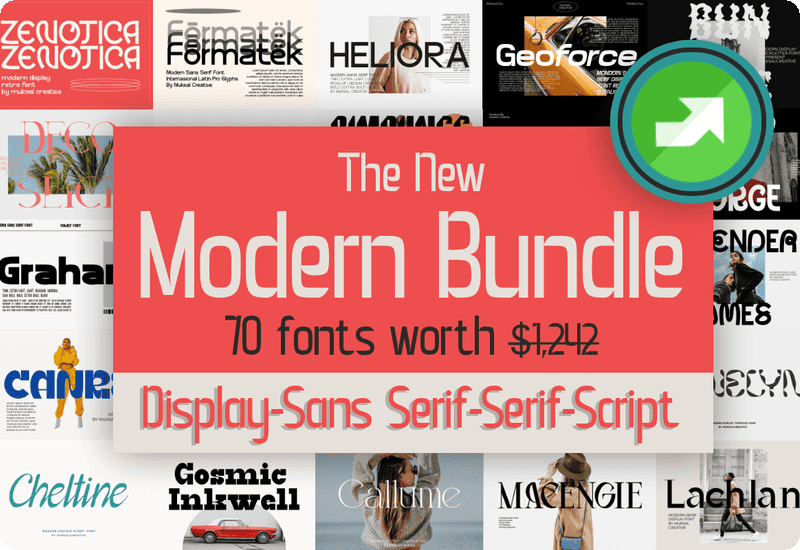
A Collection of 70 Premium Modern Fonts for Designers and Creatives
The New Modern Font Bundle offers 70 professionally crafted fonts, perfect for graphic designers, brand strategists, marketers, and creatives who want to add a touch of sophistication to their projects. This collection includes serif, sans-serif, script, and display fonts, providing versatility for various design needs. Whether creating logos, website headers, social media content, invitations, marketing materials, or editorial layouts, these fonts deliver professional-quality typography suitable for both print and digital applications.
What’s Included in The New Modern Font Bundle?
This exclusive font bundle features a curated selection of 70 modern fonts, spanning multiple styles:
✔ Elegant Serif Fonts – Timeless and refined fonts ideal for editorial layouts, luxury branding, and formal invitations.
✔ Bold Display Fonts – Attention-grabbing typefaces suited for headlines, posters, banners, and packaging.
✔ Stylish Sans-Serif Fonts – Clean and modern typography for corporate branding, websites, and advertisements.
✔ Charming Script Fonts – Handwritten and calligraphic styles perfect for wedding invitations, product packaging, and artistic projects.
✔ Unique Blackletter & Vintage Fonts – Distinctive lettering for retro designs, gothic themes, and decorative elements.
70 Premium Fonts included in The New Modern Font Bundle
- Carltine Sans Serif Font
- Cairoline Sans Serif Font
- Earfline Serif Font
- Kenlan Serif Font
- Heliora Sans Serif Font
- Bralwood Font Sans Serif Font
- Rabert Conan Serif Font
- Geoforce Display Font
- Gementine Serif Font
- Callume Fontes Serif Fonte
- Carlgine Serif Font
- Nebula Display-Schriftarten Schriftart
- Serenity Moment Serif Font
- Anouk Display-Schriftarten Schriftart
- Graham Sans Serif Font
- Finley George Sans Serif Font
- Burkey Display Font
- Retrade Sans Serif Font
- Gosmic Inkwill Serif Font
- Keroll Serif Font
- Decoslice Fontes de Exibição Fonte
- Gaincero Display Font
- Bezamin Harison Display Font
- Meriage Serif Font
- Zeminous Fontes de Exibição Fonte
- Fiorella Display Font
- Galndrie Display Font
- Gabrile Display Font
- Urban Vogue Display Font
- Mouncella Serif Font
- Luminaire Sans Serif Font
- Formatek Fuentes Sans Serif Fuente
- Tanebrous Display Font
- Bavery Display Font
- Chadenia Display Font
- Created Display Font
- Corqen Display Font
- Beron Display Font
- Zenotica Display Font
- Hauntflare Display Font
- Delphe Display Font
- Koumon Display Font
- Mariella Noeve Serif Font
- Margeline Serif Font
- Magioline Serif Font
- Dashie Display Font
- Rosaline Marige Serif Font
- Panelyn Display Font
- Cheltine Skript-Schriftarten Schriftart
- Canre Display Font
- Gemala Serif Font
- Macengie Serif Font
- Lachlan Serif Font
- Gracie Display Font
- Cameuron Display Font
- Aluender James Sans Serif Font
- Seraphina Serif Font
- Bimounce Display Font
- Calentha Serif Font
- Magefin Serif Font
- Halimah Ghost Display Font
- Carnelius Display Font
- Margeo Serif Font
- Grasher Display Font
- Raftern Sans Serif Font
- Bunfire Blackletter Font
- Malachai Display Font
- Cluvatura Display Font
- Zephyrine Display Font
- Kailn Display Font
This collection includes a mix of contemporary and classic fonts, allowing for a wide range of design aesthetics. Whether working on minimalist branding, elegant typography, or bold marketing campaigns, this bundle provides the perfect font for every project.